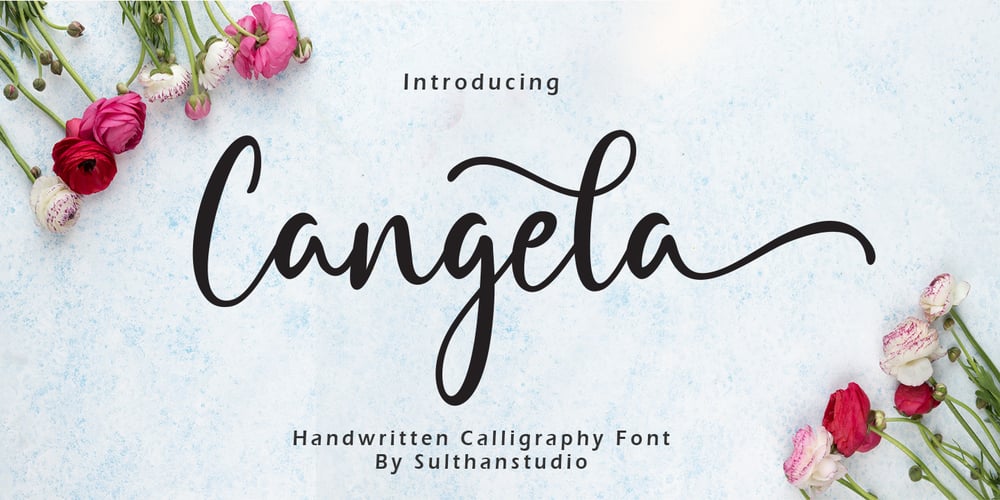
Cangela
Cangela font
Cangela Font Family was designed by Nasrullah and published by Sulthan Studio. Cangela contains 1 styles and family package options. Cangela Light, beautiful handwritten script fonts get a distinct impression with a touch of style that is unique to every job you do.Cangela is perfect for branding projects, homeware design, product packaging, use in business cards, invitation cards, etc. Simply as a stylish text overlay onto a background image or anything that requires a touch of elegance.